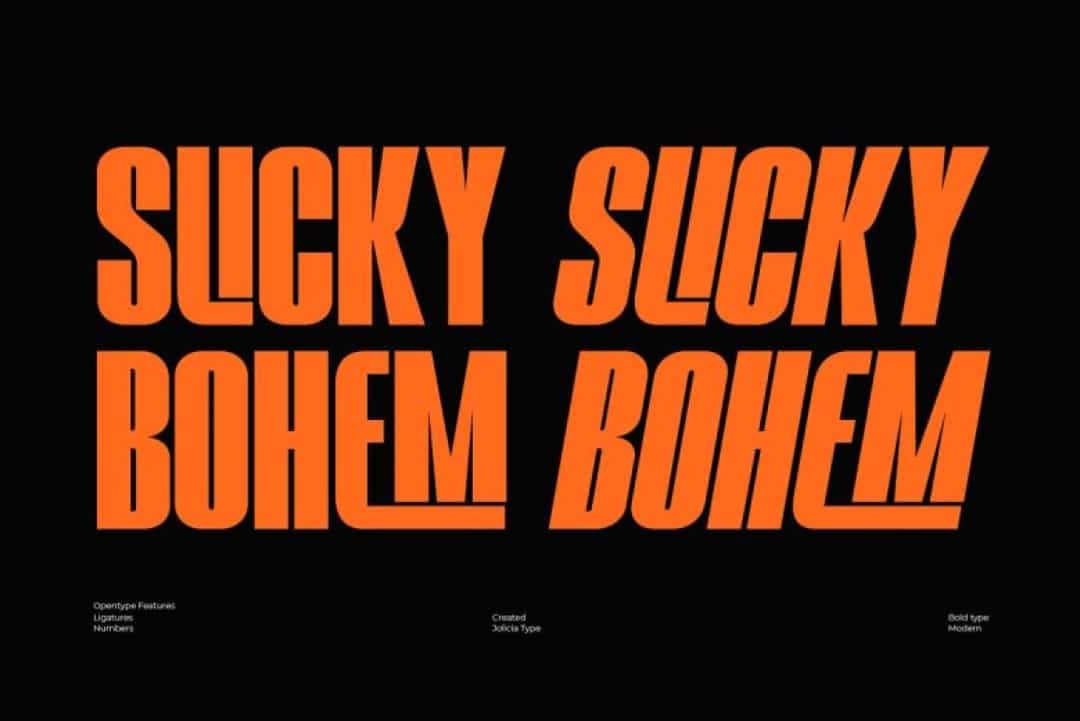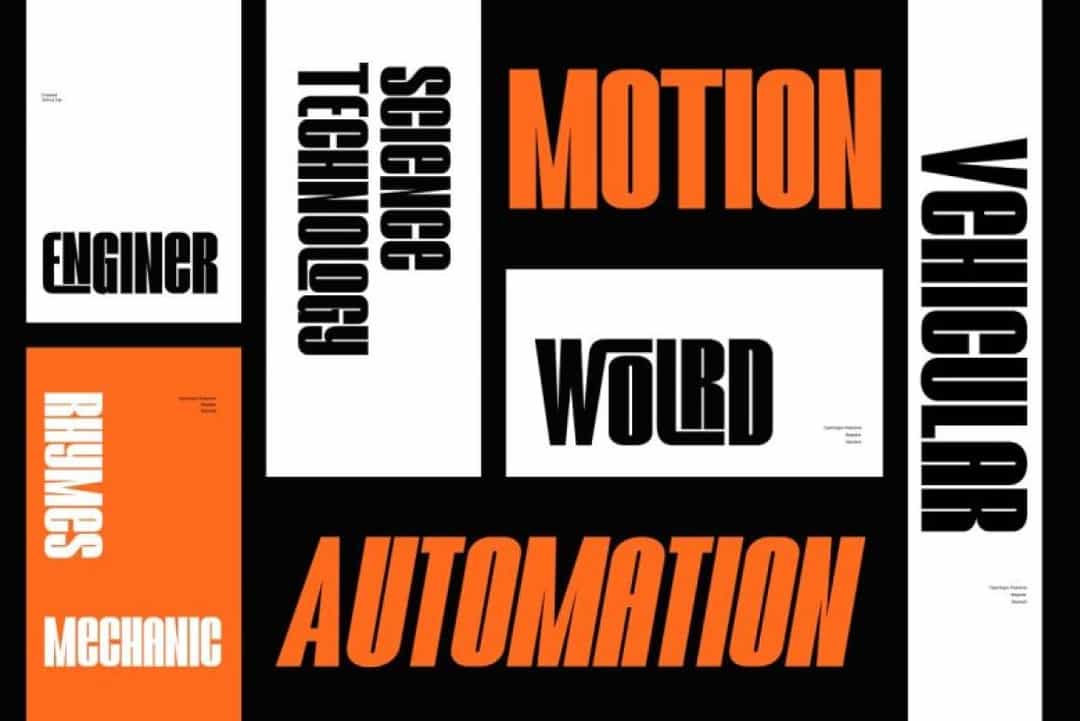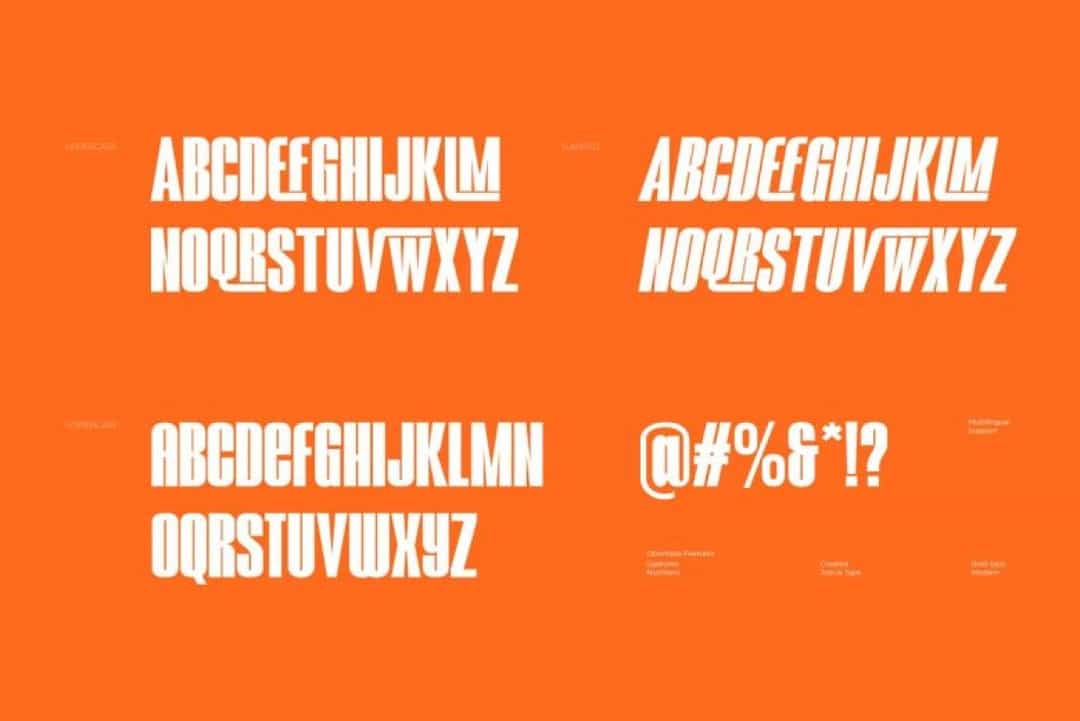
The SLICKY Bohem is an aggressive compact display font with geometric edges. Equipped with an impressive selection of ligatures that provide users with everything they need to craft beautiful typography, its distinctive ligatures will help you stand out from your work and add character and distinction. Highly recommended to anyone designing posters, logos, headlines or t-shirts!